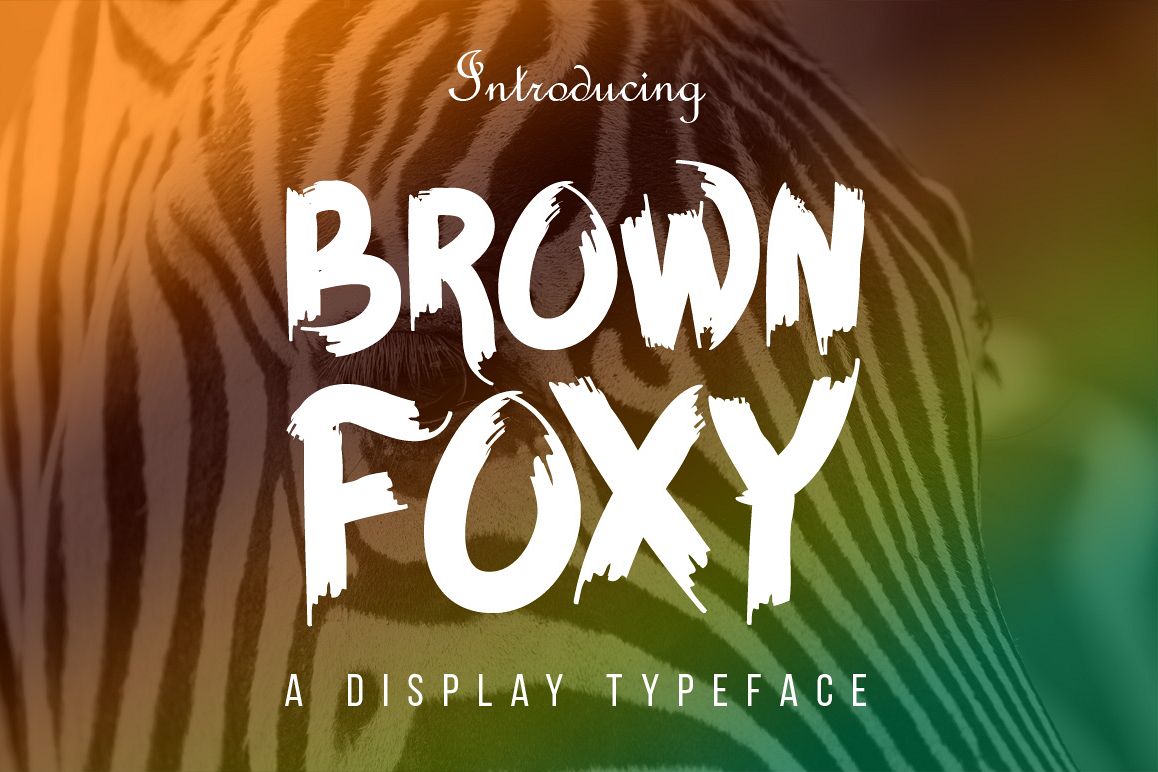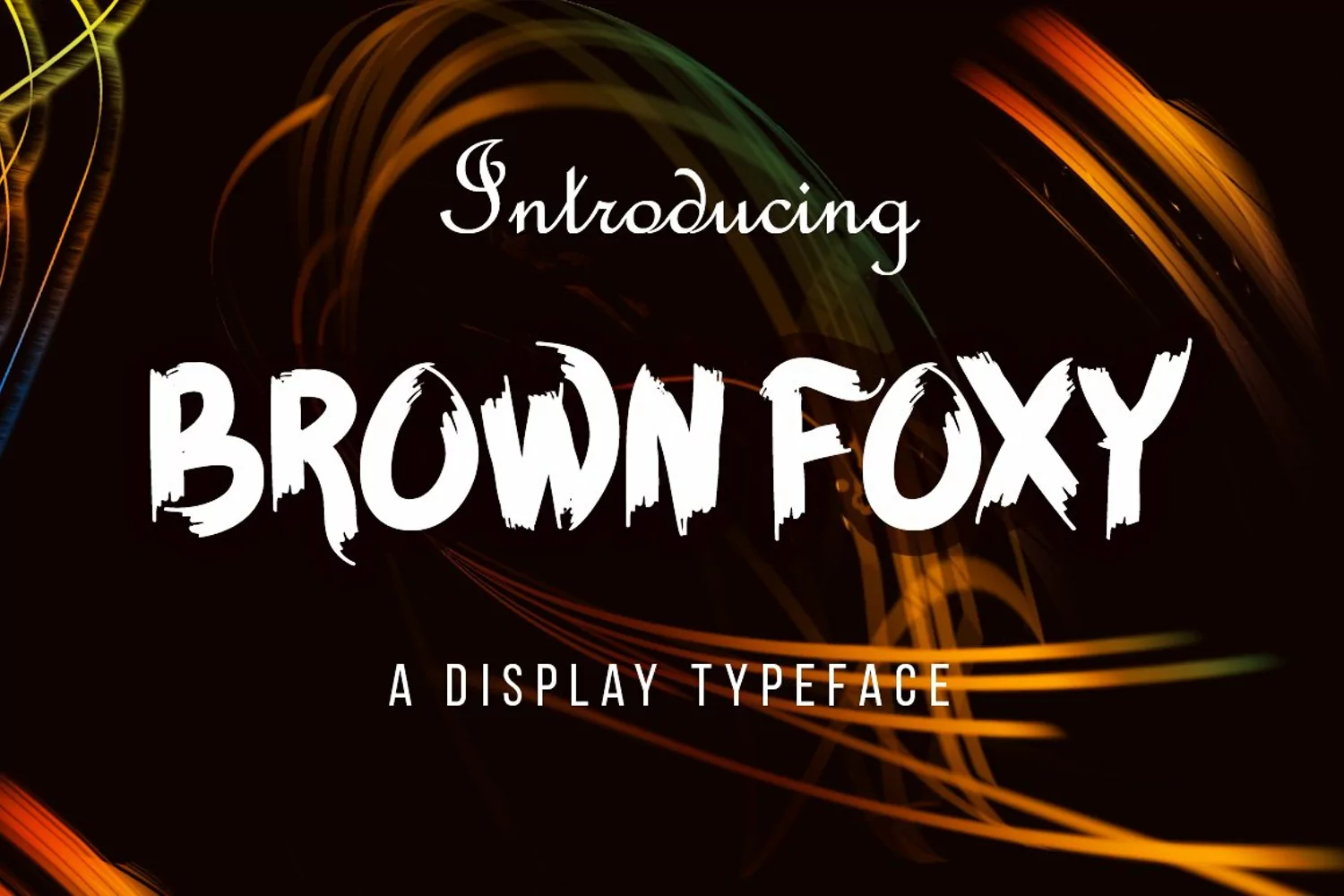
Introducing BROWN FOXY!
BROWN FOXY is a fresh modern display font. BROWN FOXY is perfectly suited to stationery, logos, t-shirt, paper, print design, website header, photo frame, flyer, music cover, poster, image slider and much more.What's Included: